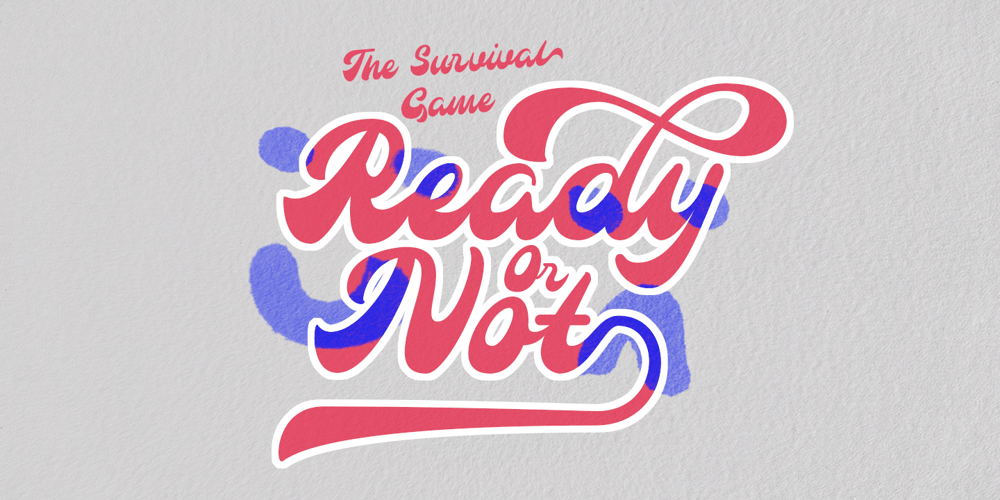
Galliardo
Galliardo font
Galliardo Font Family was designed by Ahmad Jamaludin and published by Ahmad Jamaludin. Galliardo contains 1 styles and family package options. Say hello to GALLIARDO – A versatile script that combines the chic stylishness of the art deco period with the retro feel of the ultra-cool 70s :)Galliardo – A versatile script font that embodies classic and vintage-inspired typeface and adds a touch of timeless charm to any design. Whether you’re working on branding projects, signage, or packaging, and the other various formal forms such as invitations, labels, logos, or any type of advertising purpose this font is your go-to choice for creating a memorable and distinct visual experience.Features: Full Character Complete alternate and ligature Instructions ( Access special characters, even in Cricut Design ) Letters, numbers, symbols, and punctuation No special software is required to use this typeface even work in Canva Unique letterforms Works on PC & Mac Simple Installations PUA Encoded Characters Fully accessible without additional design software. Multilingual Support Give your design projects that fun, playful edge with GALLIARDO!Come and say hello over on Instagram! https://www.instagram.com/dharmas.studio/Thank you,Dharmas Studio